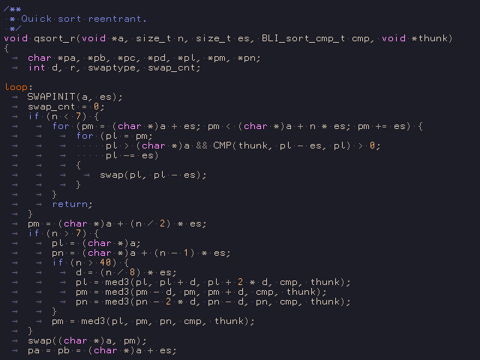
This is a modified version of the Triskweline bitmap font, from netalive.org (2009-03-16). with minor changes for improved readability with code.
Triskweline-Code